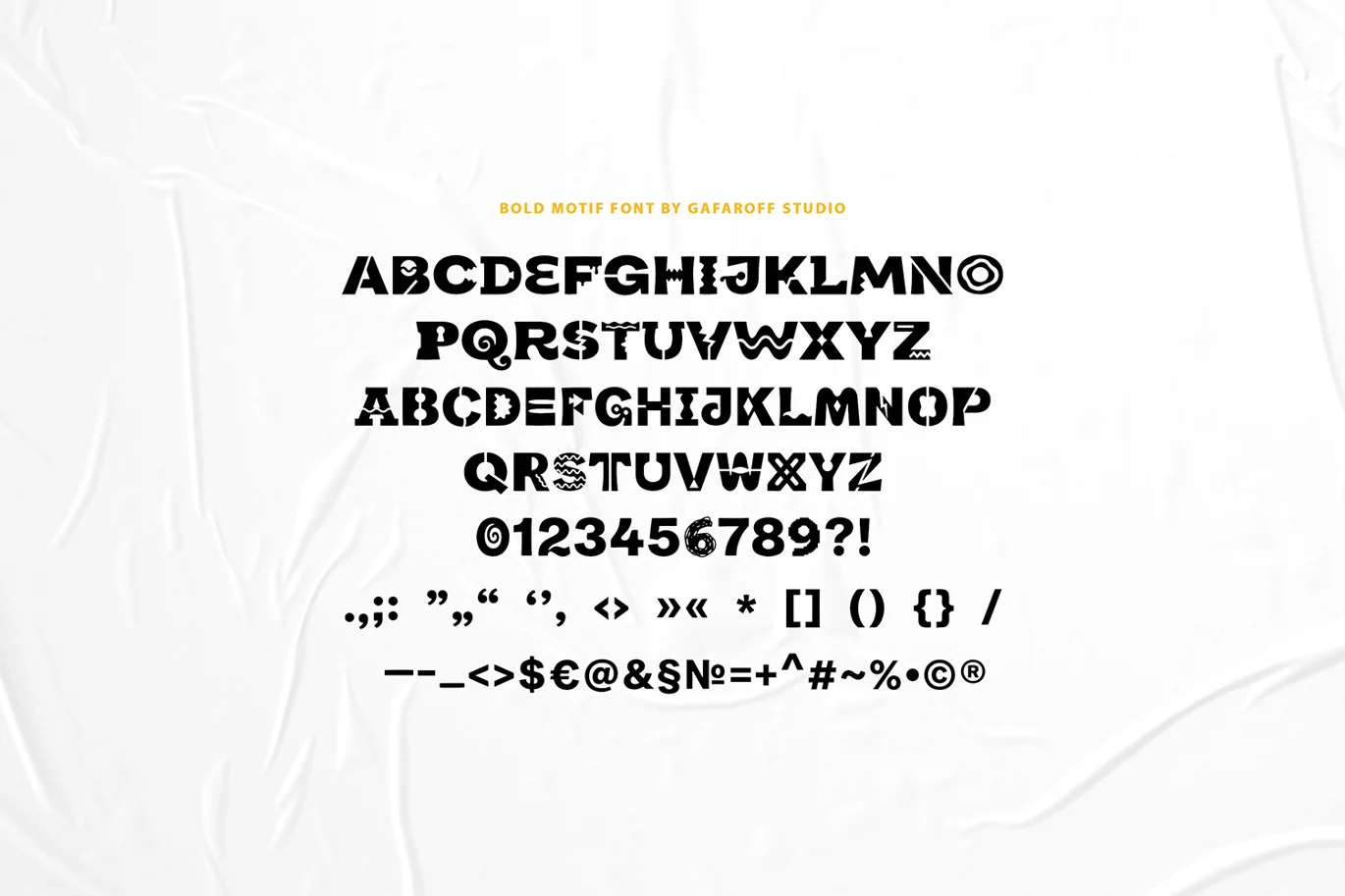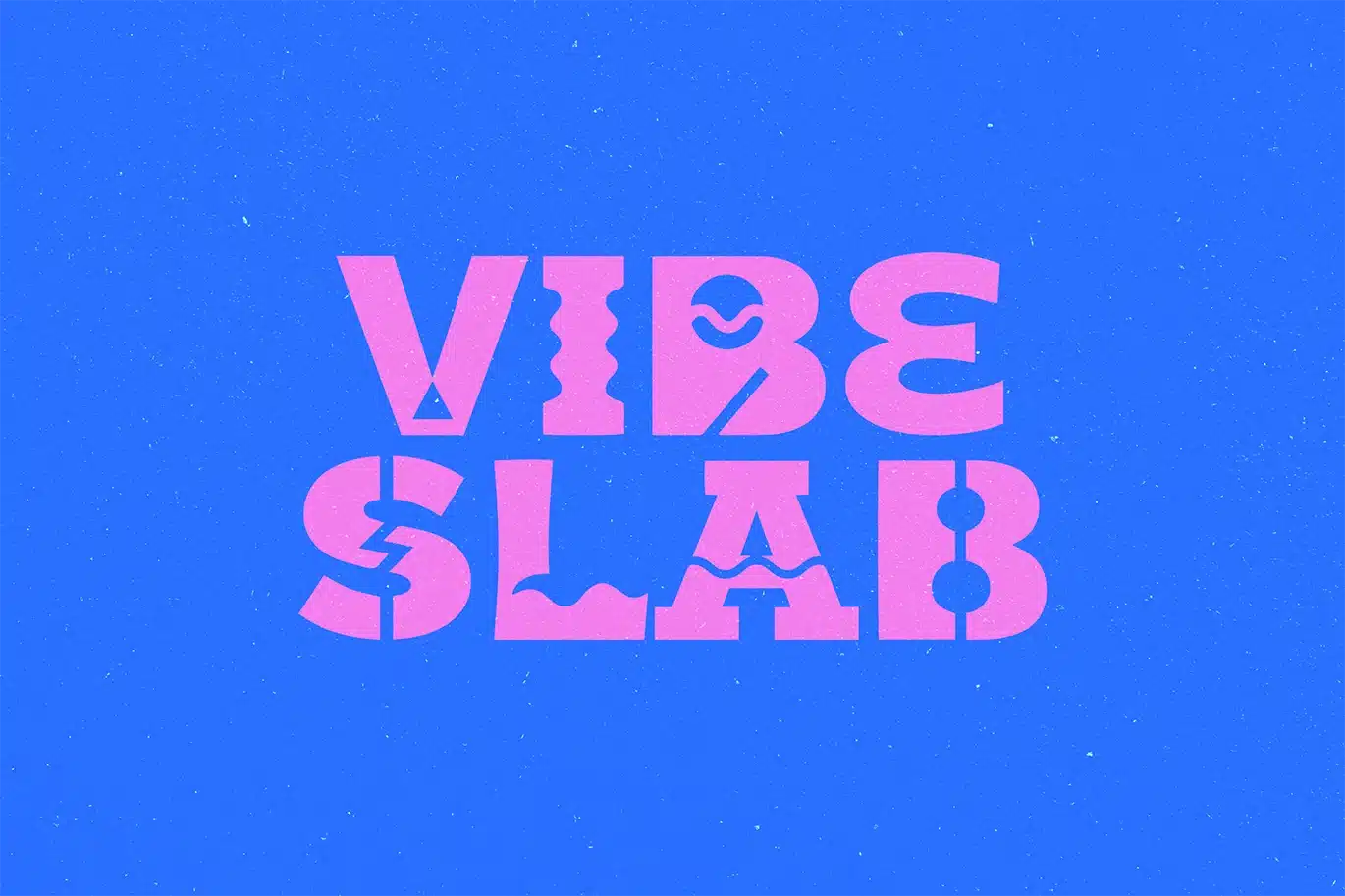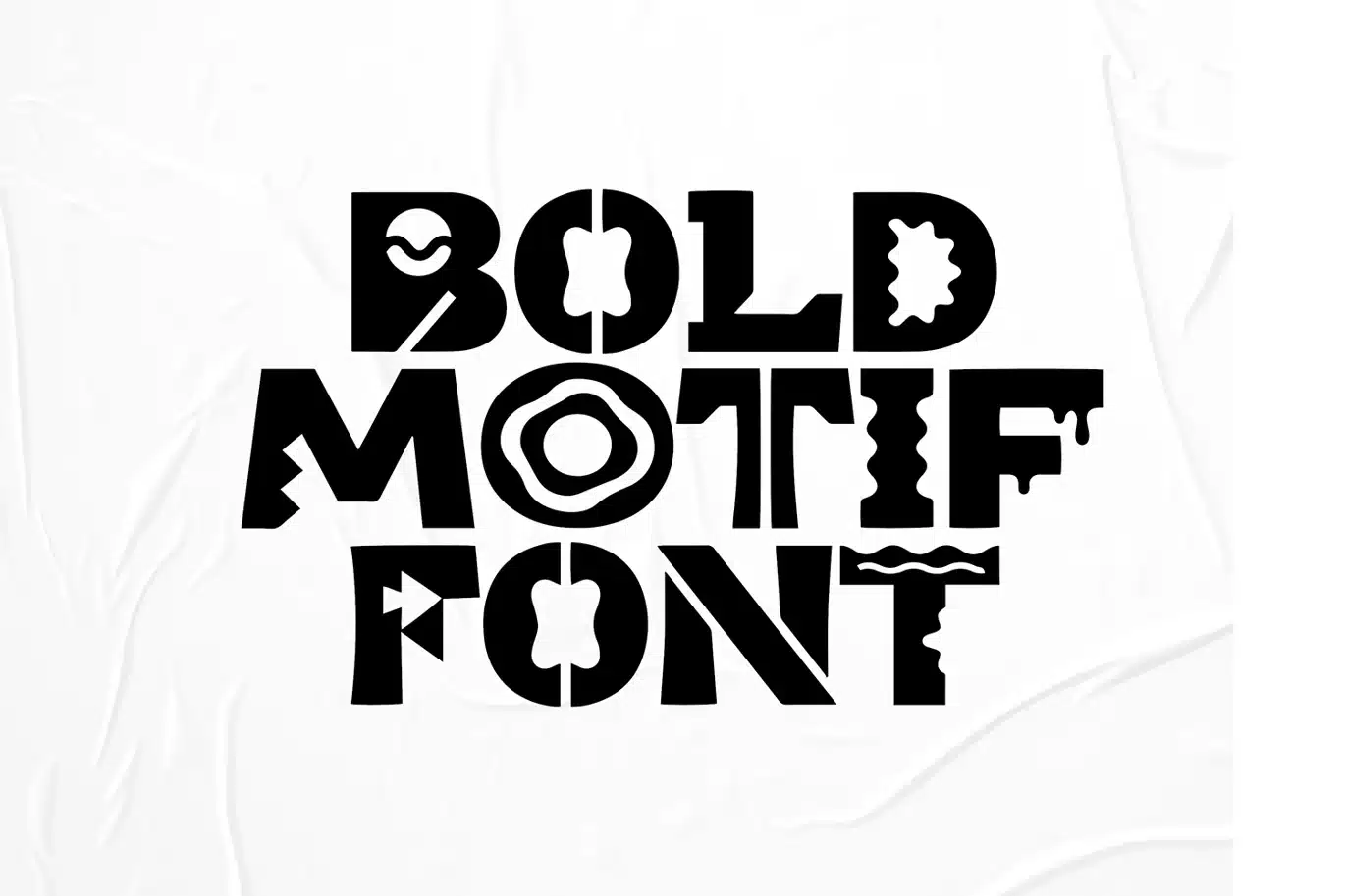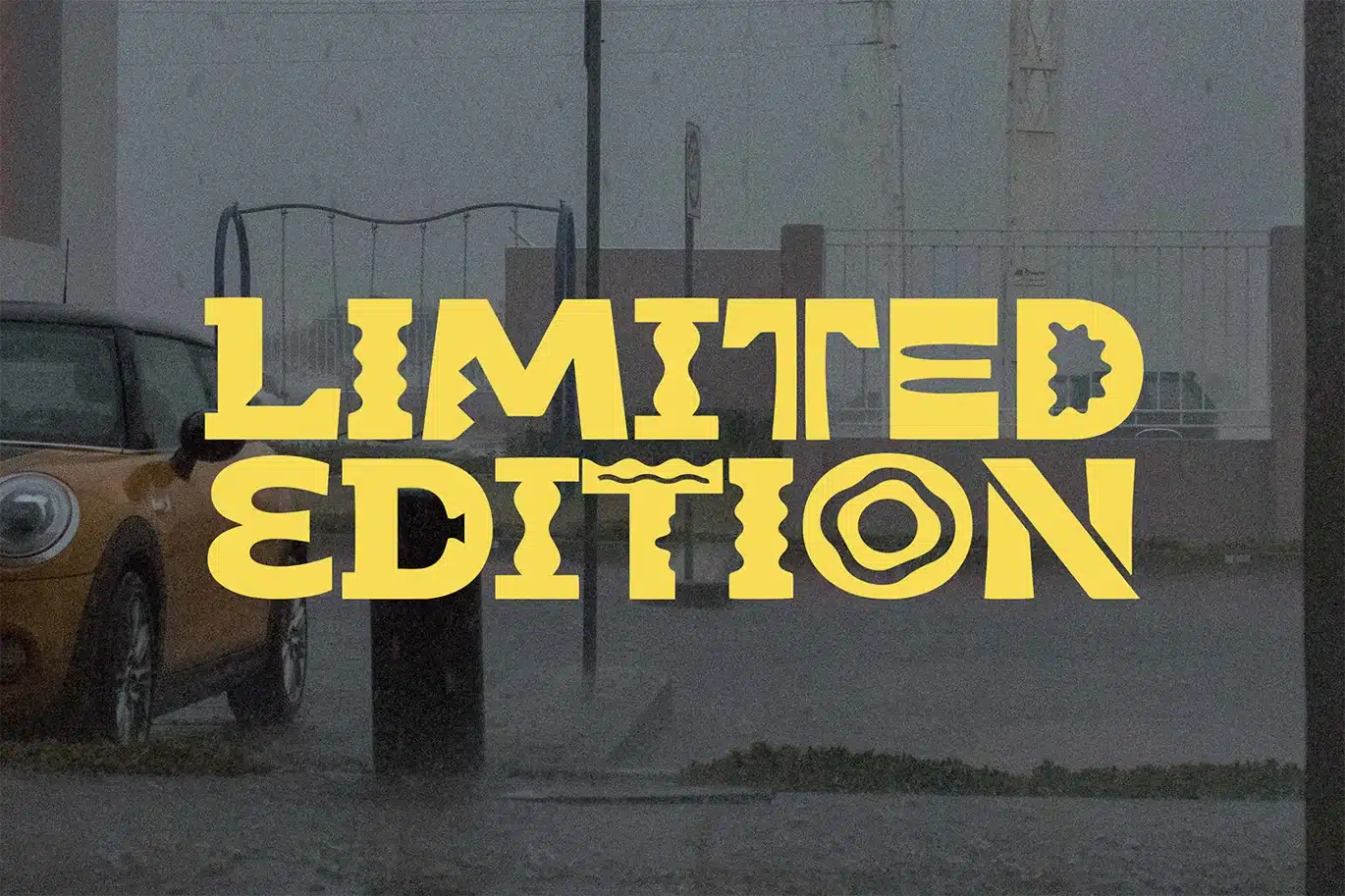
Trendy Bold Font
BOLD MOTIF is a trendy uppercase display font with bold shapes and unique motif cutouts. Designed to stand out in branding, packaging, posters, and modern creative projects.
PERFECT FOR
• Branding & logos
• Packaging & labels
• Posters & headlines
• Social media graphics
• Merch & print designs